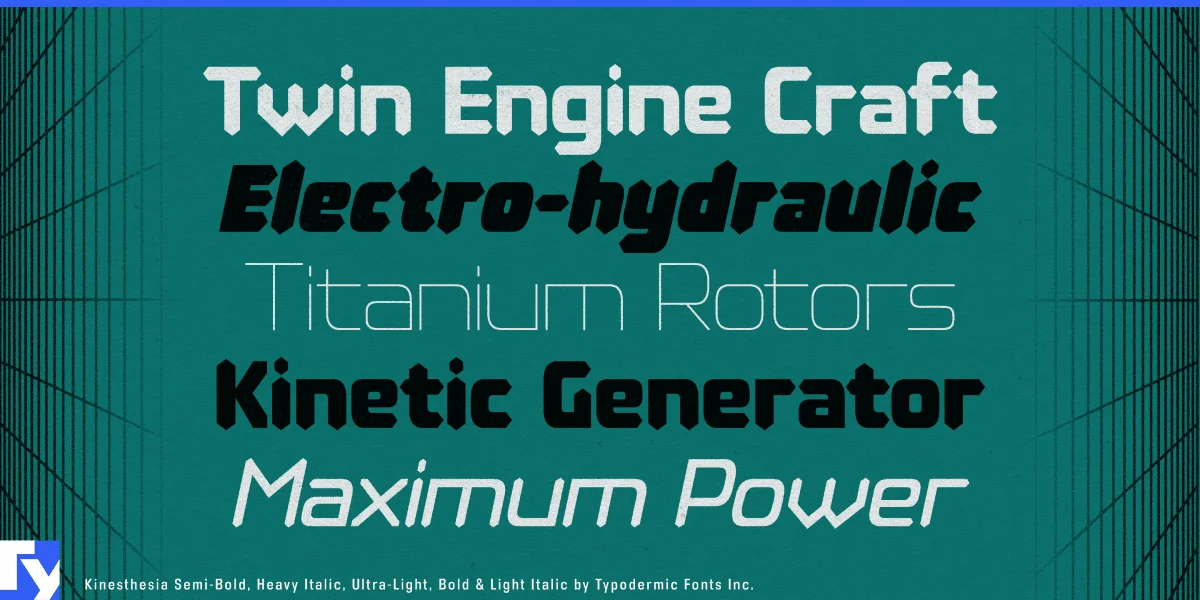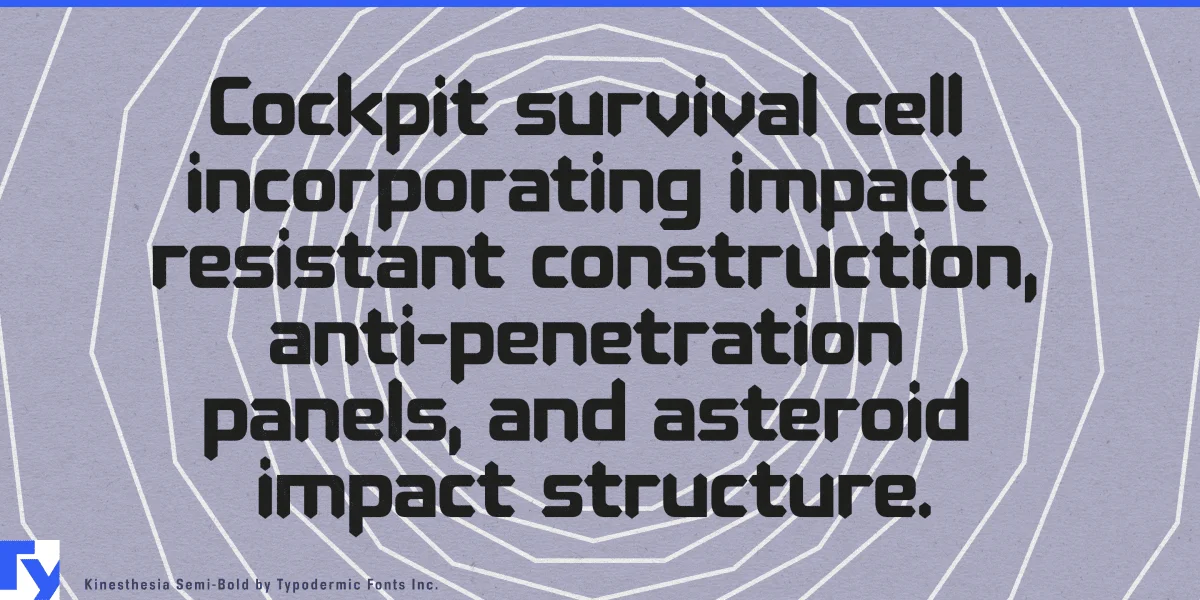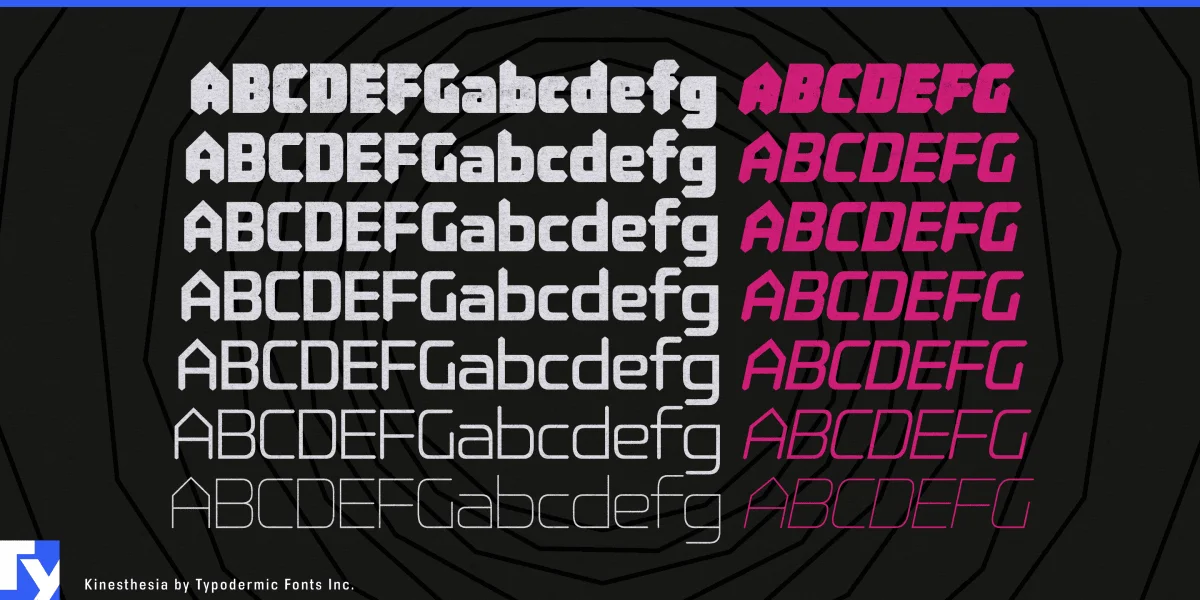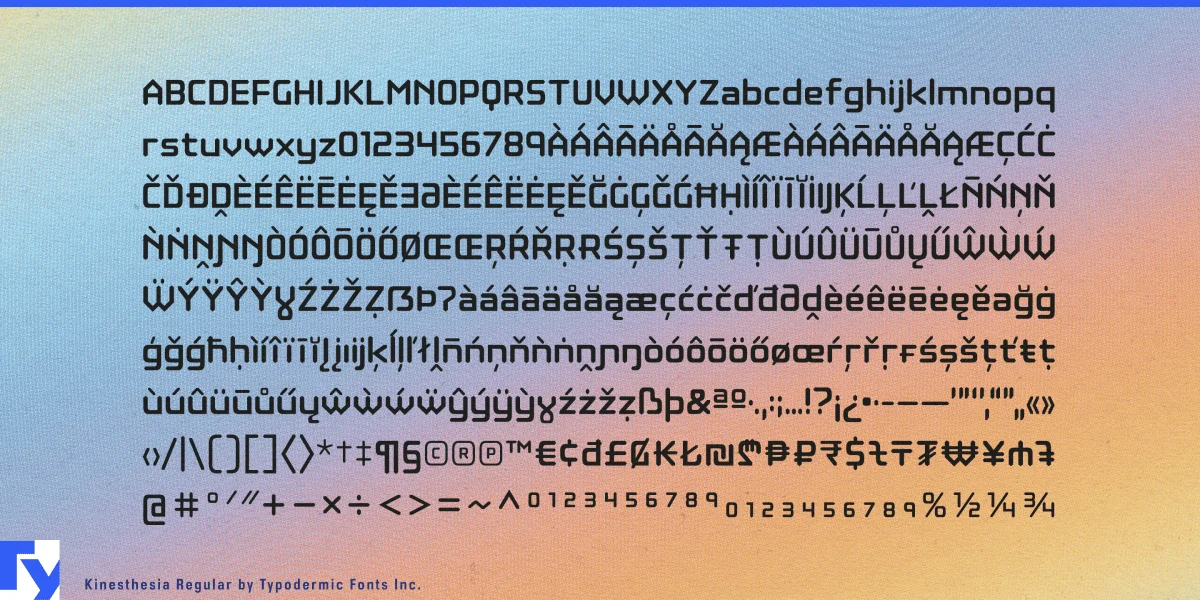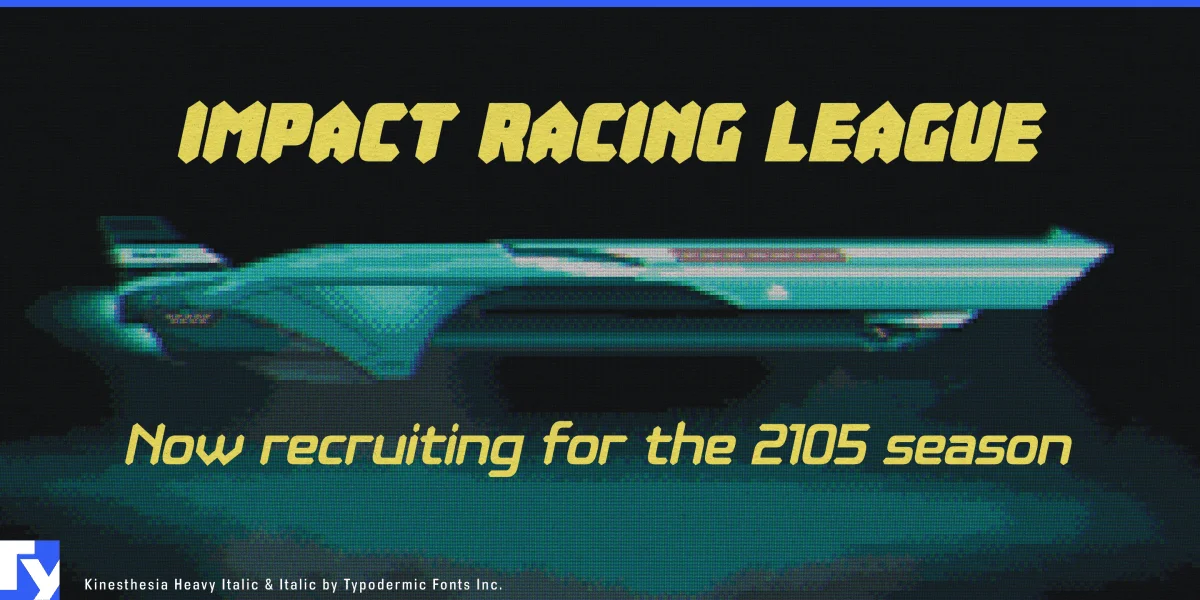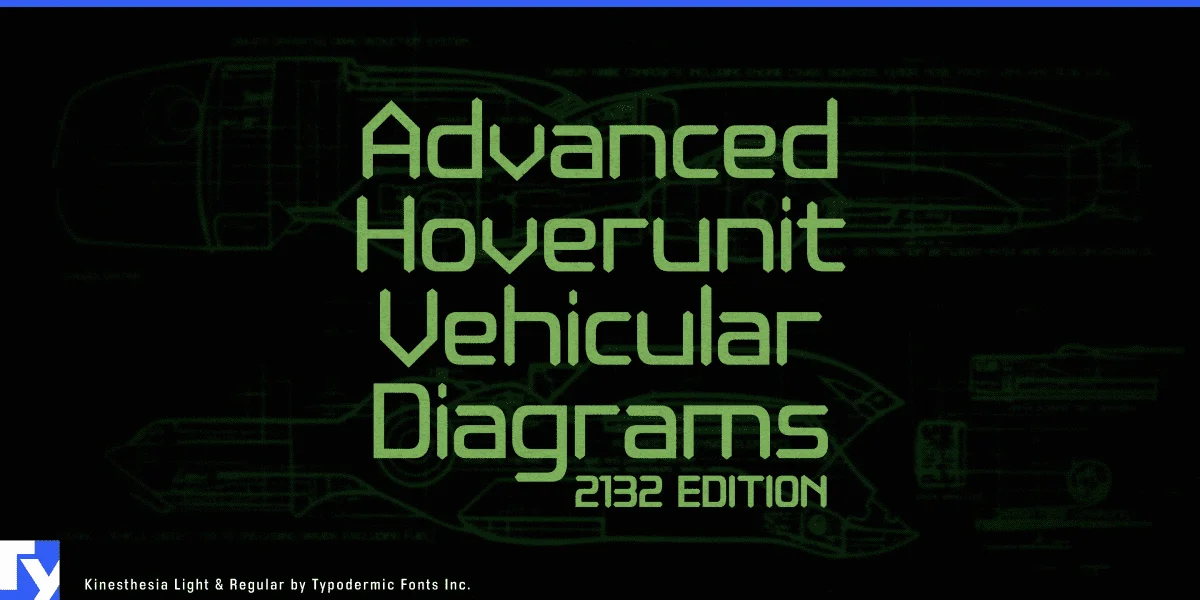
Kinesthesia replaces the usual flat or rounded stroke endings with crisp diamond-cut terminals. This faceted detail reshapes the rhythm of every word, giving the typeface a sharp, engineered presence.
The design feels fast, focused, and contemporary, making it well suited to high-tech branding, futuristic interfaces, esports graphics, and science-fiction packaging. Balanced proportions and carefully tuned curves keep it readable in everything from bold headlines to precise data displays, delivering typography that looks built rather than merely drawn.